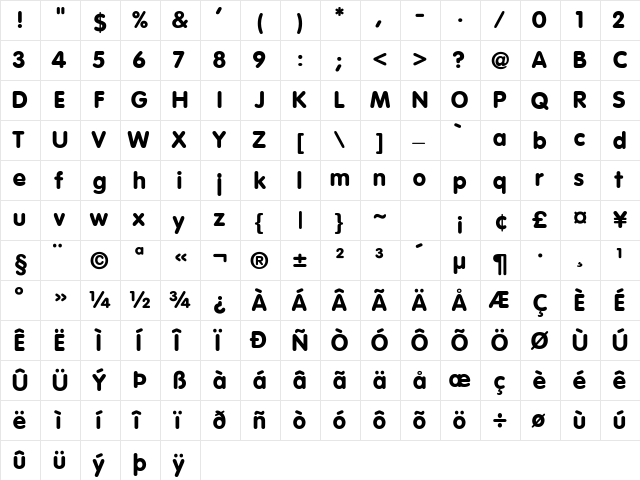
Vag-Rounded_Black Regular
Design Context for Vag-Rounded_Black Typeface
Vag-Rounded_Black uses gentle rounded endings to create a warm, inviting typographic personality — less corporate than geometric sans, more refined than playful display fonts.
A natural fit for tech startups, health and wellness brands, children's products, and friendly consumer apps.
Font Pairing: Pairs well with a rounded or humanist sans for body copy, maintaining the friendly tone without relying on Vag-Rounded_Black to carry extended reading.
Pro Tip: Pair Vag-Rounded_Black with a geometric sans for a balanced system — the rounded softness works as a warm counterpoint to harder-edged companions.